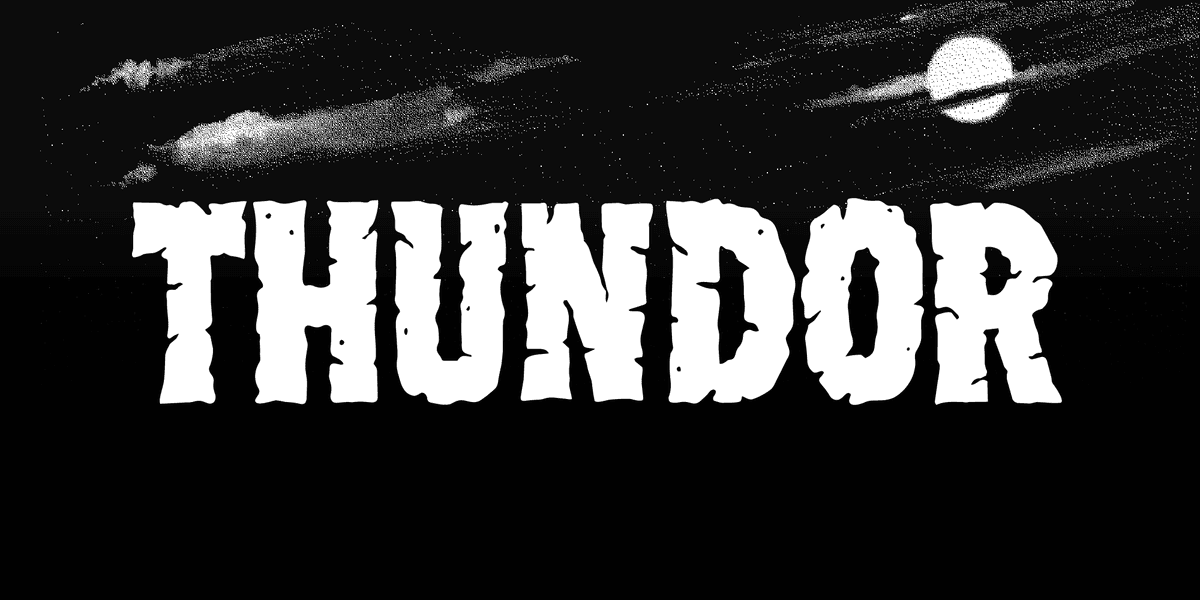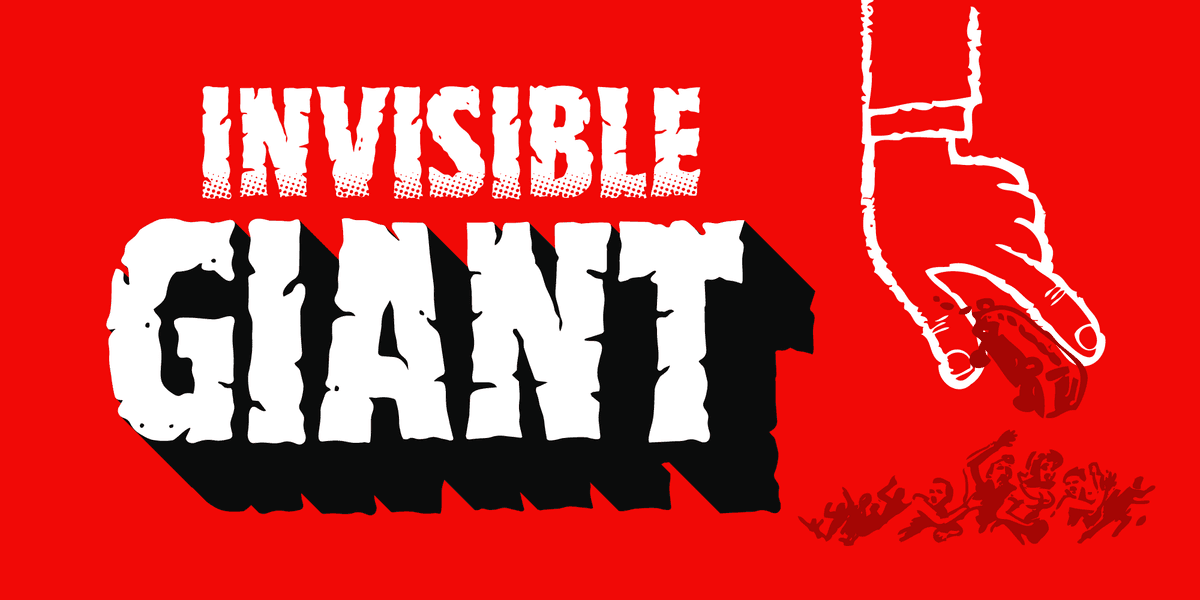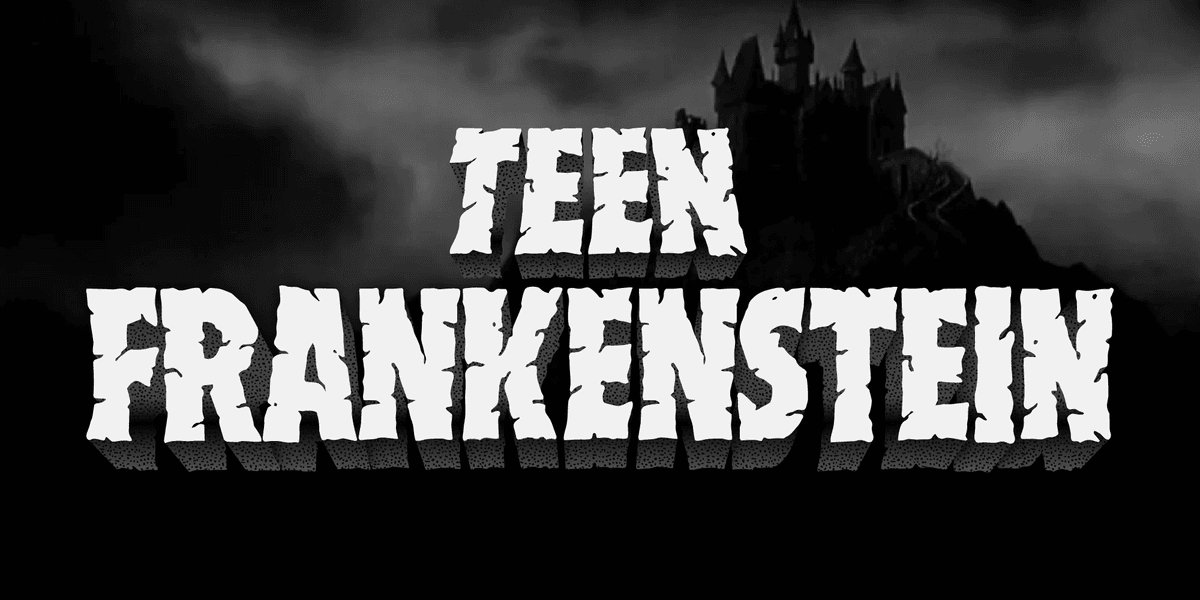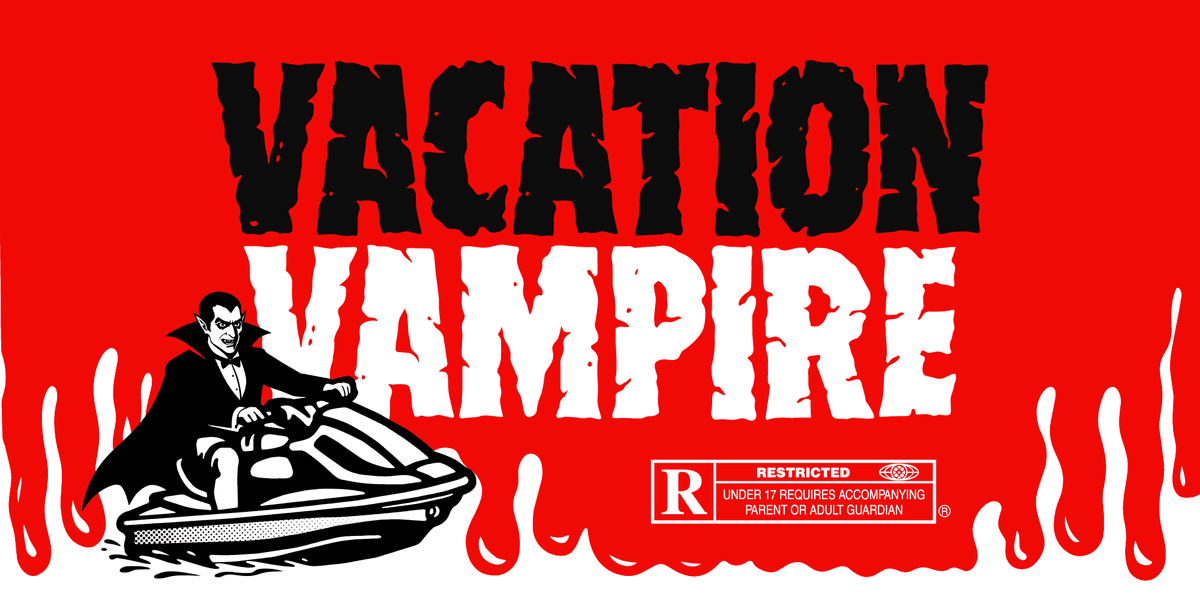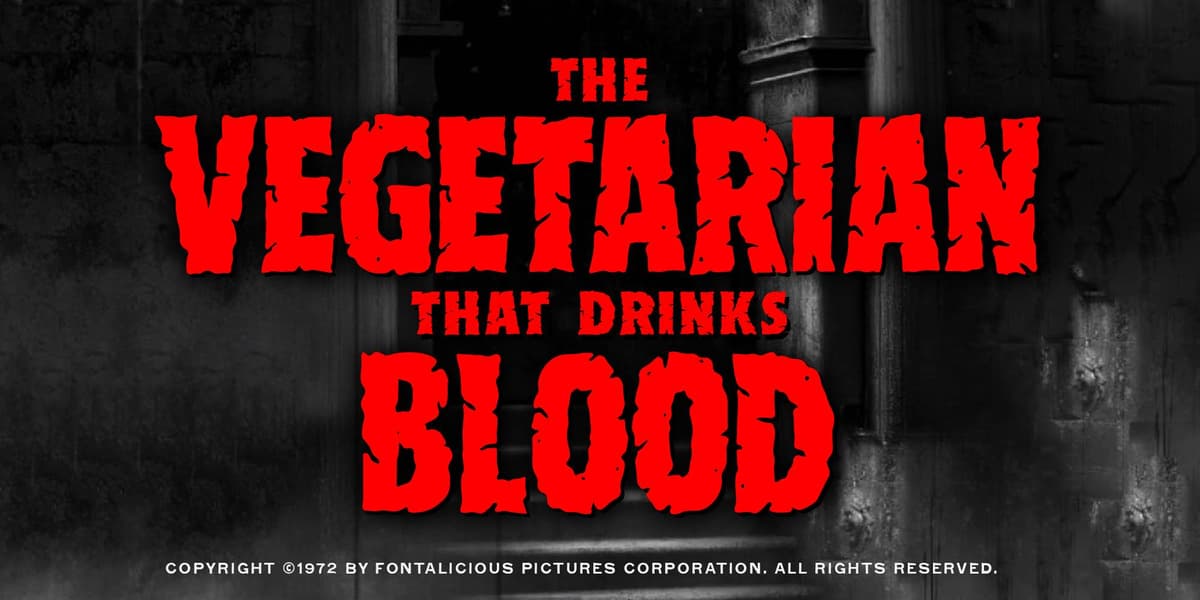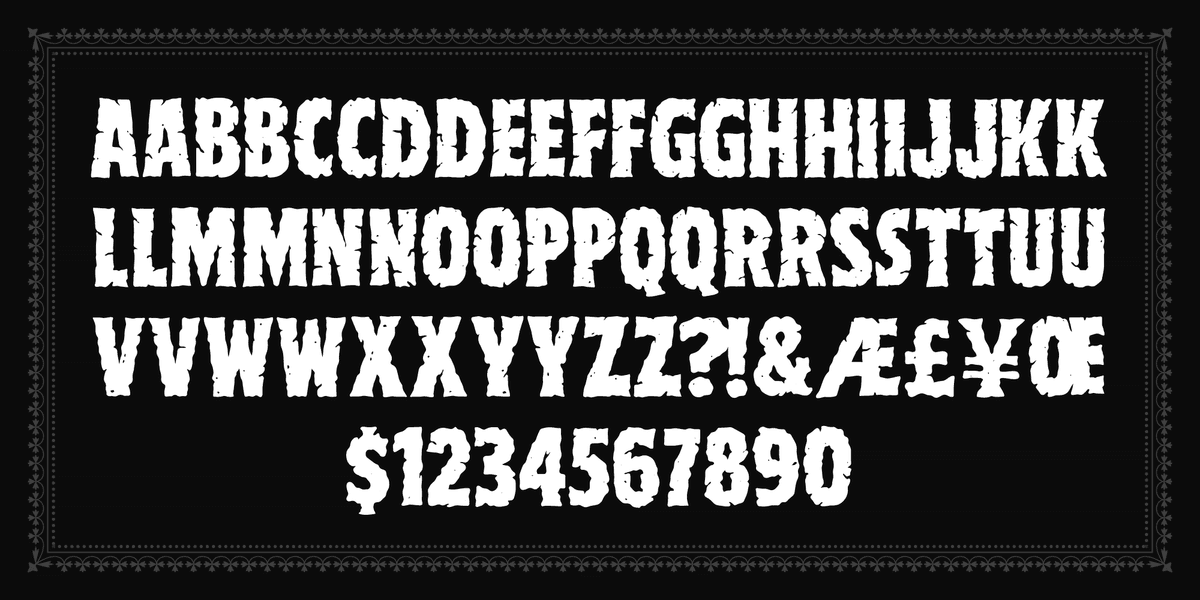
Thundor is a bold, beastly horror font that feels like it escaped from a late-night monster movie marathon. Its chunky, thunder-struck letterforms crackle with creature-feature energy. And on a personal note, I did a similar font called Thunk last year which I love, but ultimately missed the mark for me when all is said and done. I hope this one changes your life as much as it did mine.